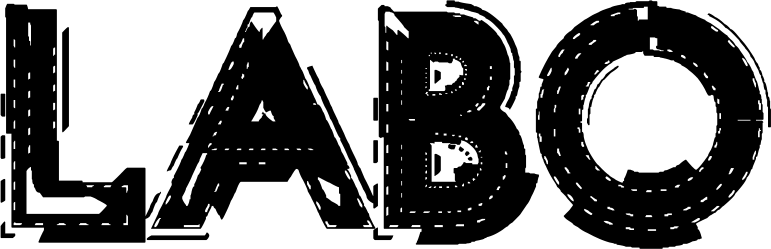
Labo Font
Distorted fonts are one of the options that you can make use of it for text designs. The letters are deformed in this case and fit special logos, badges, headlines, and so on. Remember that Labo doesn’t consist of small characters. Give it a shot right now and see how well it sounds.